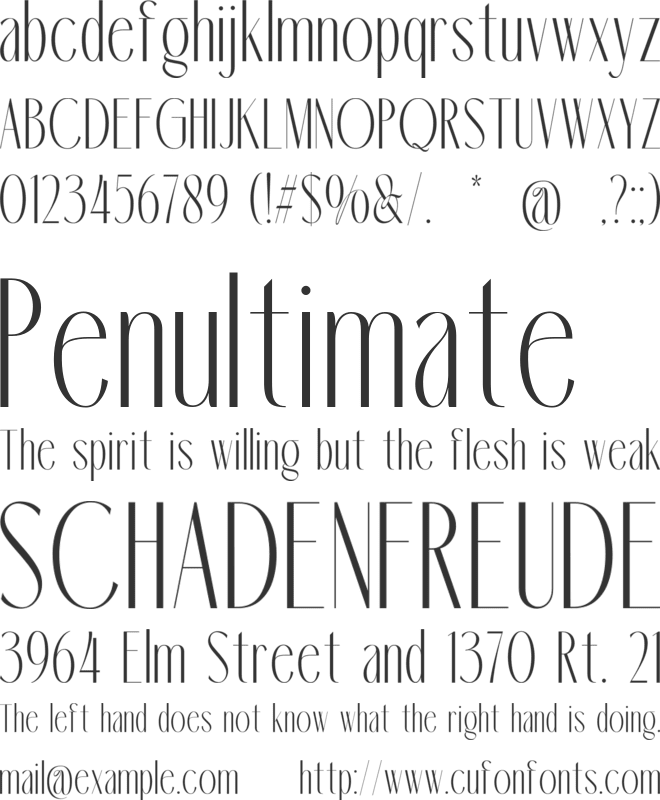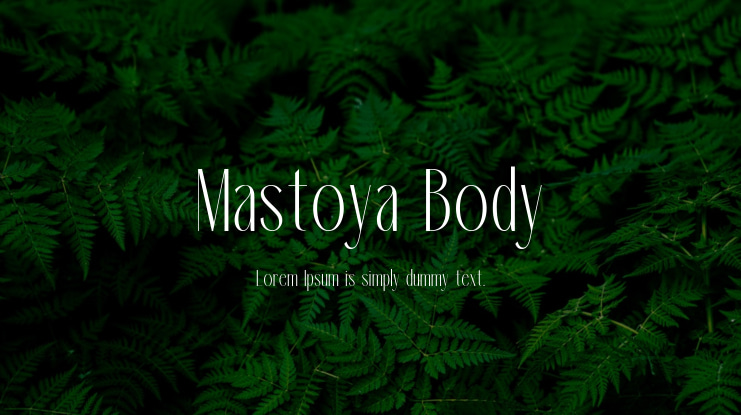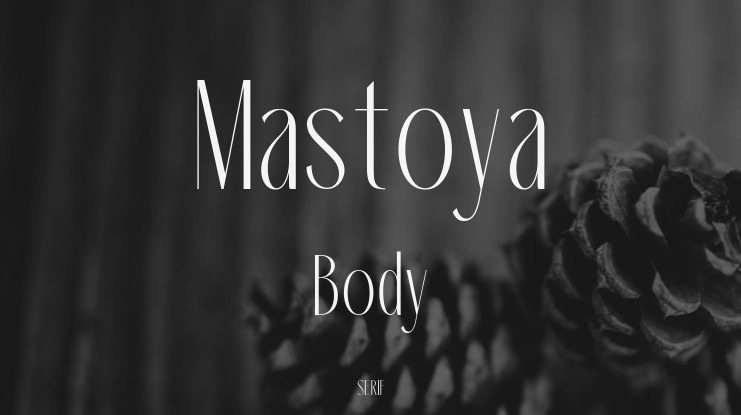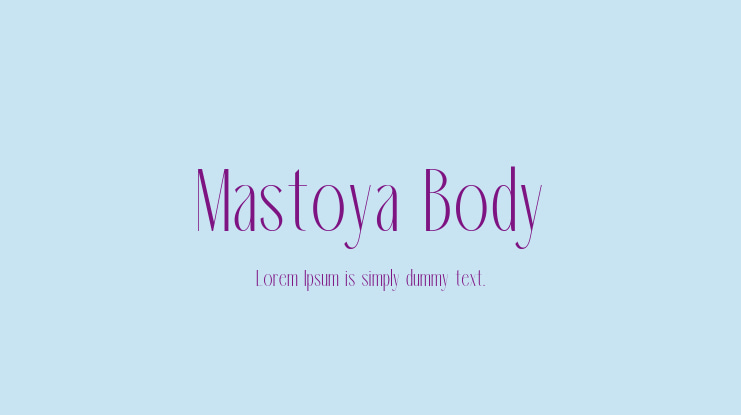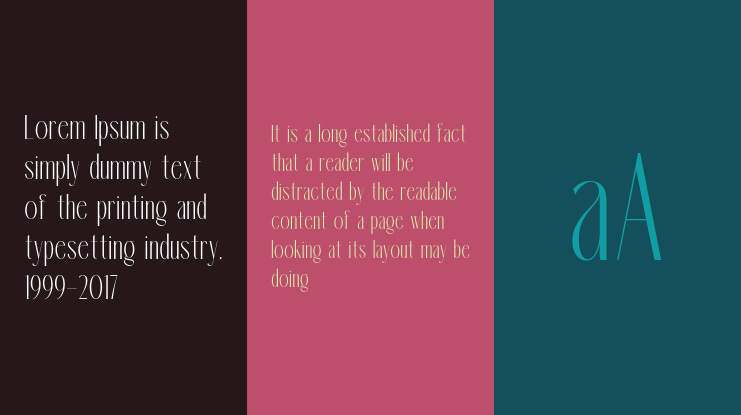
Mastoya Body Font
Mastoya Typeface
Elevate your design projects with the Mastoya Typeface, a modern sans serif font that redefines elegance and versatility. Mastoya stands out with its alternative swaying and dynamic curves, infusing your text with a unique and captivating personality.